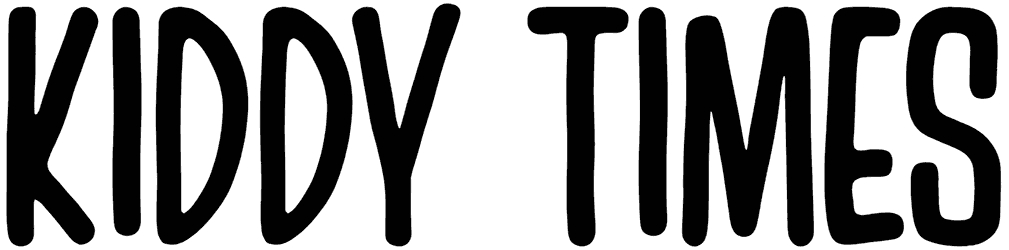
Kiddy Times Font
A collection of children’s fonts would not be complete without the Kiddy Times font because of its fantasy style and smooth characters. While this tall font does not contain any small letters, its capital letters are fascinating and long, making it a great font.
Consequently, it can be used in a wide variety of posters and greeting cards that have a vertical format. This cartoon font is designed for creative professionals who value standing out from the crowd.